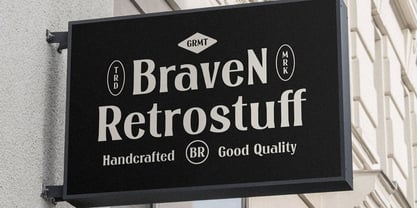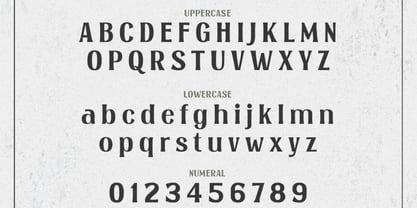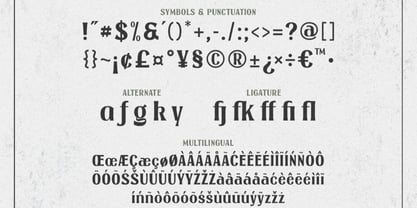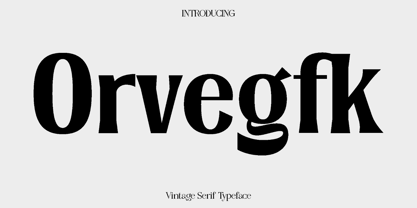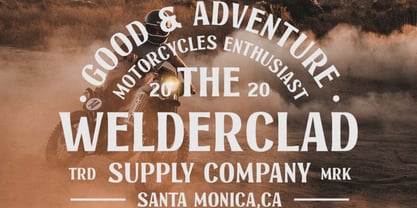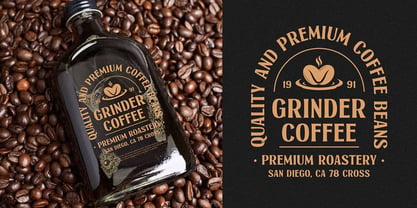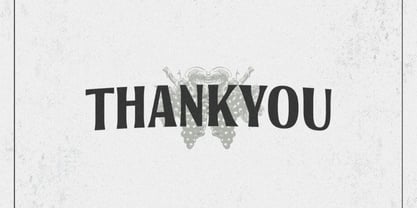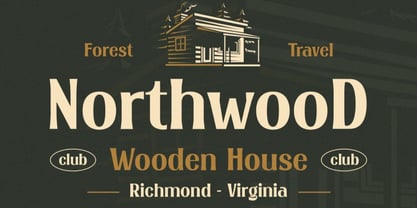
Orvegfk
by Only Fonts
The Orvegfk Font Family was designed by Olivia Love and published by Only Fonts. Orvegfk contains 1 styles. More about this family
Orvegfk – Vintage Elegant Serif Typeface Orvegfk is a vintage serif typeface inspired by the timeless beauty of classic typography. Designed to echo the charm of historic print and old-world craftsmanship, Orvegfk features ornate details and carefully balanced proportions that create a refined, nostalgic atmosphere in your work. Each letterform reflects a sense of heritage, allowing designers to craft visuals that feel authentic, warm, and rich in character. This typeface excels in projects that celebrate tradition and storytelling, making it an excellent choice for retro branding, antique-style logos, book covers, editorial layouts, invitations, packaging, and heritage-inspired posters. Whether used for bold titles or elegant text compositions, Orvegfk delivers a graceful presence that enhances the emotional depth of your design. Orvegfk embodies a classic, sophisticated style full of personality, helping designers evoke nostalgia while maintaining clarity and visual harmony. Perfect for both print and digital applications, this font transforms modern projects into timeless visual experiences that capture attention and convey a refined aesthetic. Orvegfk Vintage Serif Features: • Uppercase and lowercase characters • Alternates and ligatures • Numbers, punctuation, and symbols • Multilingual support Bring a touch of history and elegance to your typography with Orvegfk, allowing your designs to resonate with the beauty of a classic era.
Designers: Olivia Love
Foundry: Only Fonts